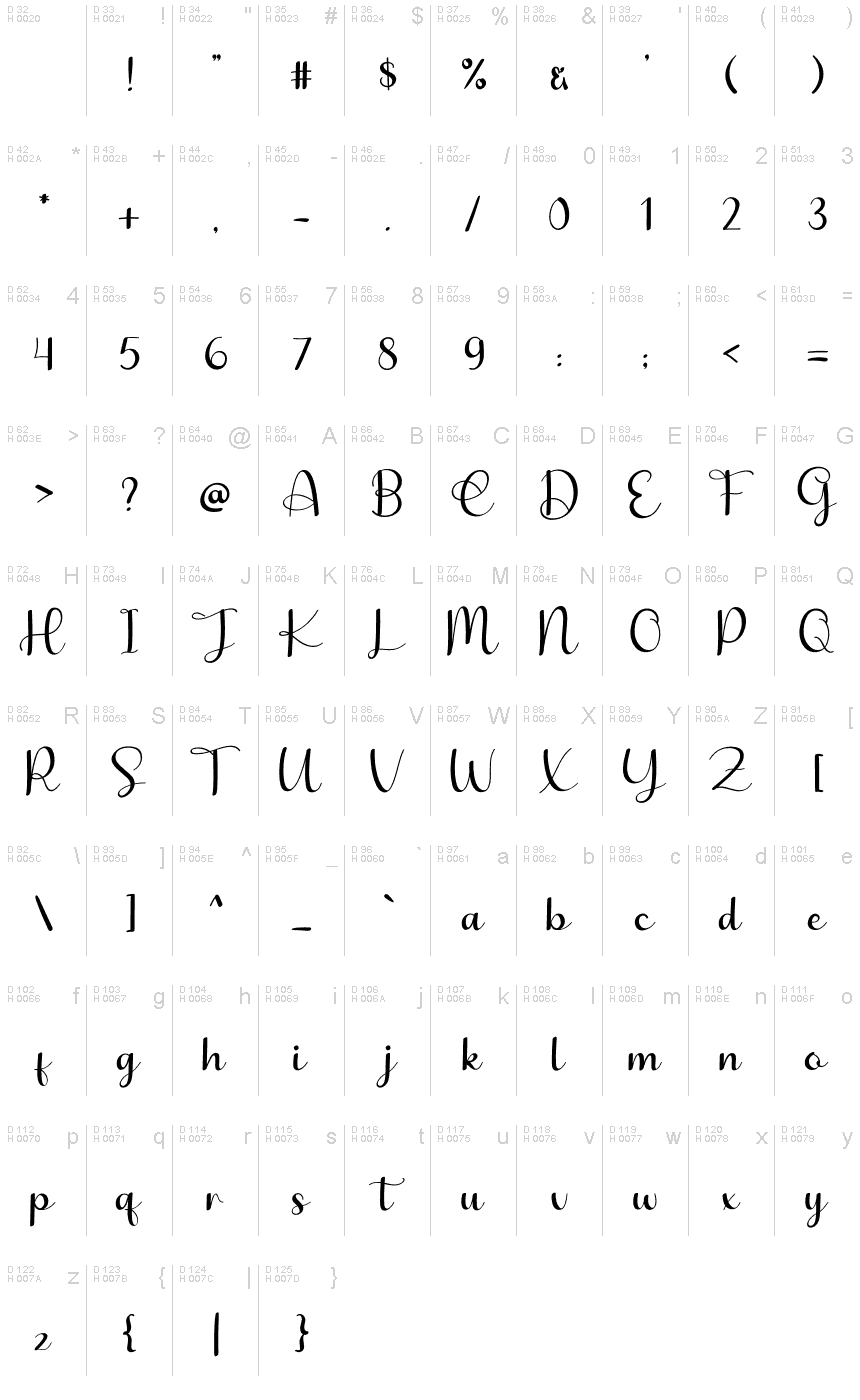
Christmas Angel
Christmas Angel, by Erik Studio, is a stunning calligraphy font that will add elegance and charm to any project. With its semi-light weight, this font is perfect for creating delicate designs such as wedding invitations, greeting cards, or even product packaging. The ornate strokes of Christmas Angel bring a touch of whimsy to the page while maintaining legibility and clarity. Its versatility also makes it suitable for logo designs or branding projects seeking an air of sophistication. Add a touch of magic to your next design with Christmas Angel – the perfect choice for those in search of a beautiful calligraphy font.